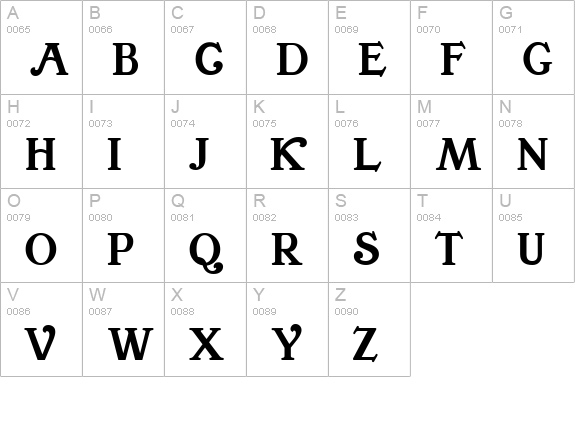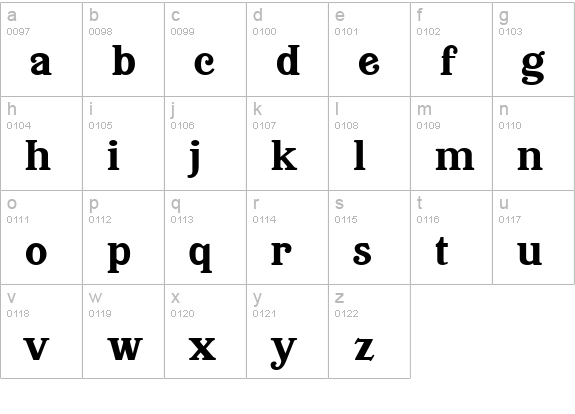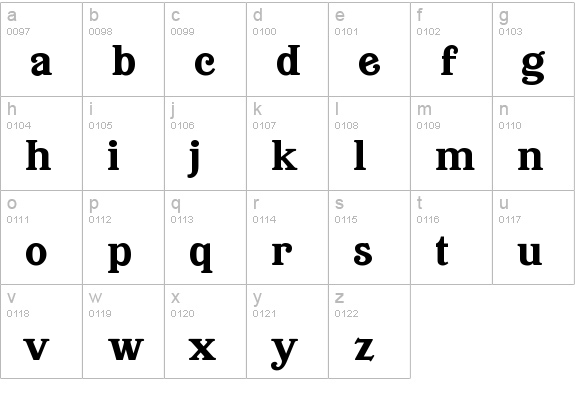
BuenaParkJF is a stylish and modern font that exudes elegance and sophistication. Its sleek lines and eye-catching curves make it perfect for a wide range of design projects, from branding to invitations to social media graphics. This versatile font is sure to make your text stand out and leave a lasting impression on your audience. The best part? BuenaParkJF is completely free to download at FontsMarket.com. This means you can enhance your creative projects without breaking the bank. Don't miss out on this fantastic opportunity to add a touch of class to your designs with BuenaParkJF font. Download it now and let your creativity soar!